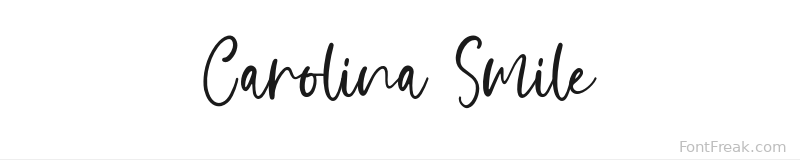
Carolina Smile
Carolina Smile by Syaf Rizal is a charming handwritten font that exudes warmth and personality. This script-style font boasts a fluid and playful design, ideal for projects that call for a touch of elegance and approachability. With its moderate stroke weight and gentle contrast, Carolina Smile is both legible and inviting, making it a versatile choice for various applications. The spacing is well-balanced, allowing for easy readability while maintaining a cohesive look.
This font is perfect for a wide range of creative projects. Whether you're designing wedding invitations, where a romantic flair is essential, or crafting eye-catching movie posters that require a unique touch, Carolina Smile fits the bill. Its playful characteristics also make it an excellent choice for restaurant menus, contributing to a welcoming atmosphere. Additionally, content creators looking to enhance their social media graphics will find this font particularly appealing, as it adds a personal touch to digital storytelling.
What truly sets the Carolina Smile font apart is its ability to convey a sense of joy and friendliness. This font not only serves as a visual element but also evokes emotion, making it an excellent choice for projects that aim to connect with audiences on a personal level. With Carolina Smile font free download available, designers can easily incorporate this delightful typeface into their work, enriching their projects with its unique charm.